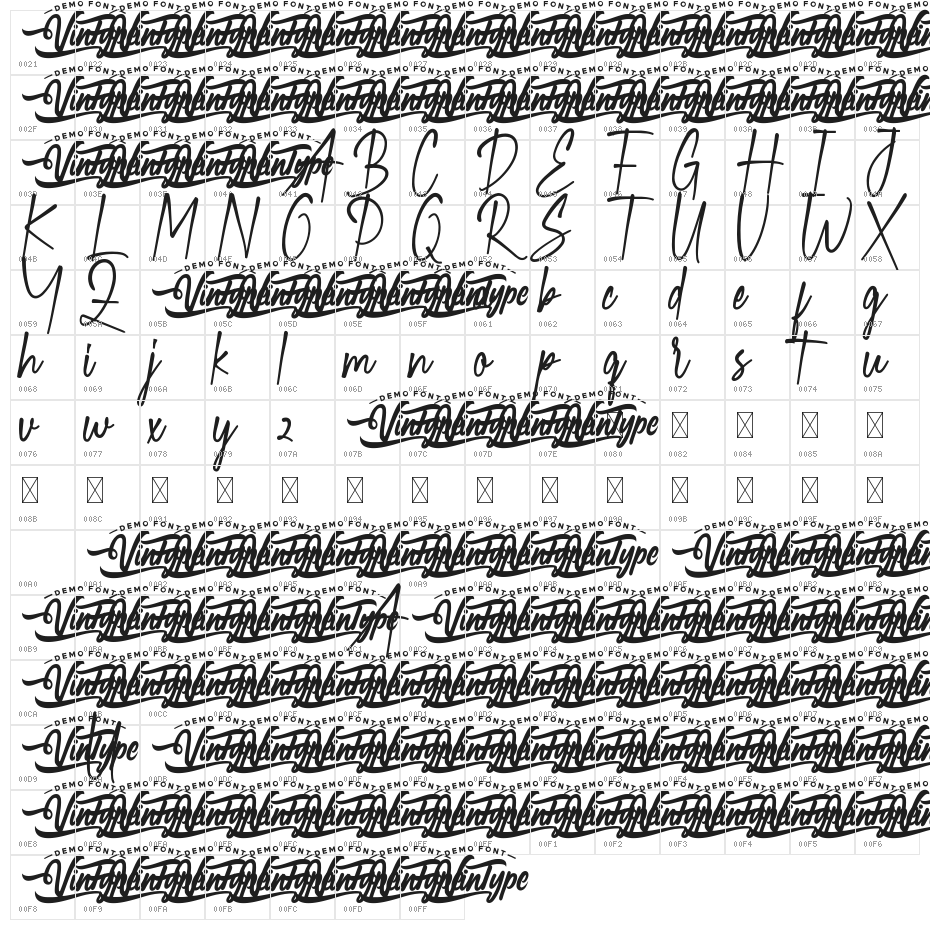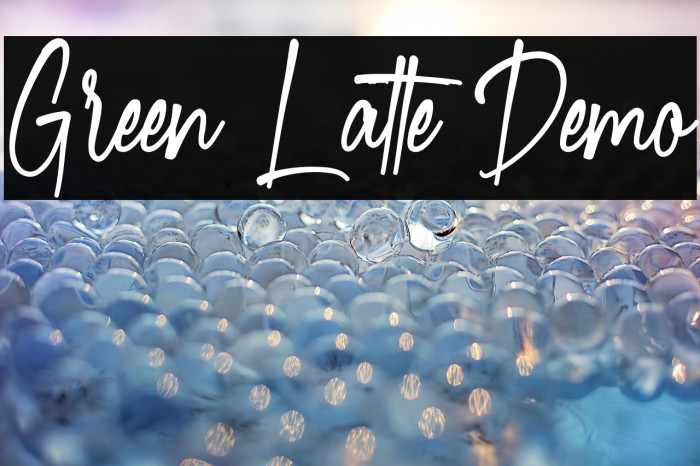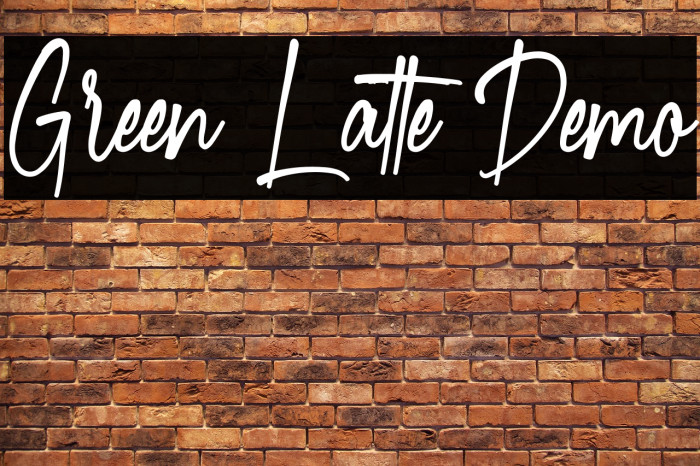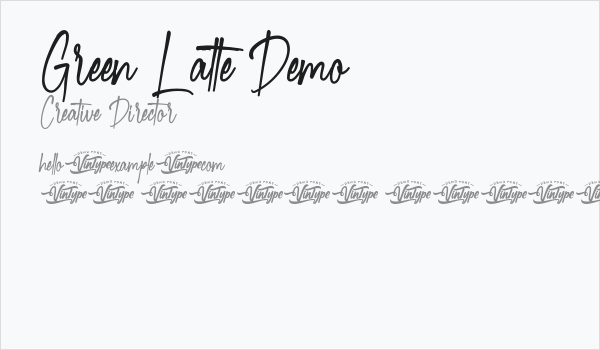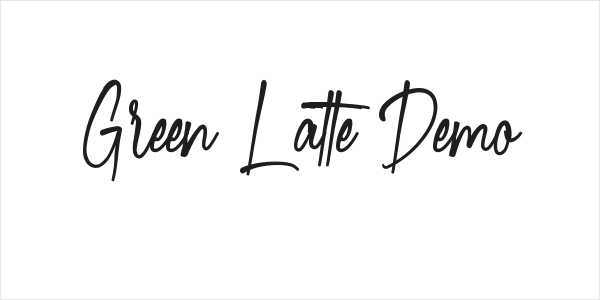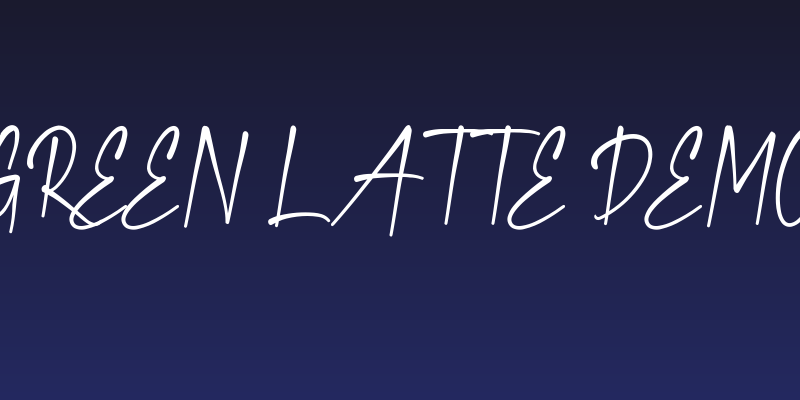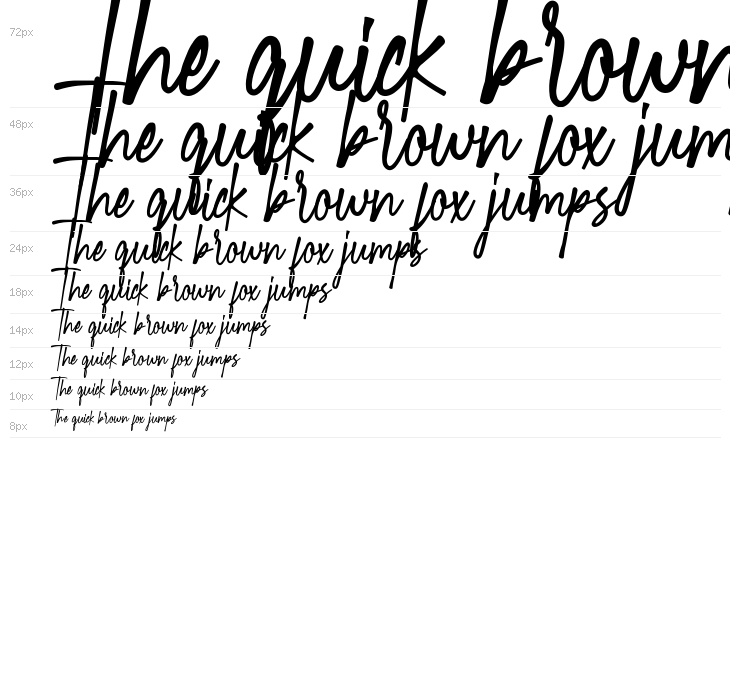
Green Latte Demo Font
Green Latte Demo Description
This font exhibits a dynamic and expressive handwritten style, characterized by its fluid and cursive letterforms. The uppercase letters are tall and slender, with a slight slant that adds a sense of movement and elegance. The lowercase letters are more bold and rounded, creating a striking contrast with the uppercase. The font includes a full set of numerals and a selection of special characters, maintaining the same lively and artistic aesthetic throughout. The overall design is both modern and playful, making it suitable for creative and informal applications.
Use CaseLogos, Headlines, Creative projects
Proposed ProjectsIdeal for greeting cards, invitations, branding projects, and social media graphics where a personal and artistic touch is desired.